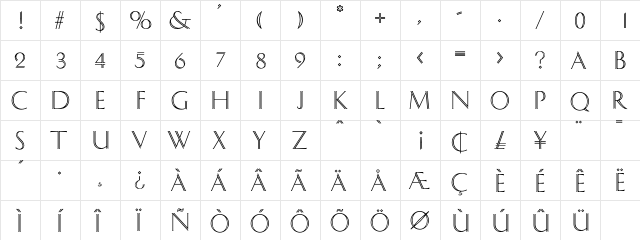
Mykena Regular
Design Context for Mykena Typeface
Mykena offers clean, dependable letterforms without strong stylistic allegiance, making it a practical choice for designers who need flexibility.
Pro Tip: Use Mykena in both headline and body roles to test its range before committing to a single application.